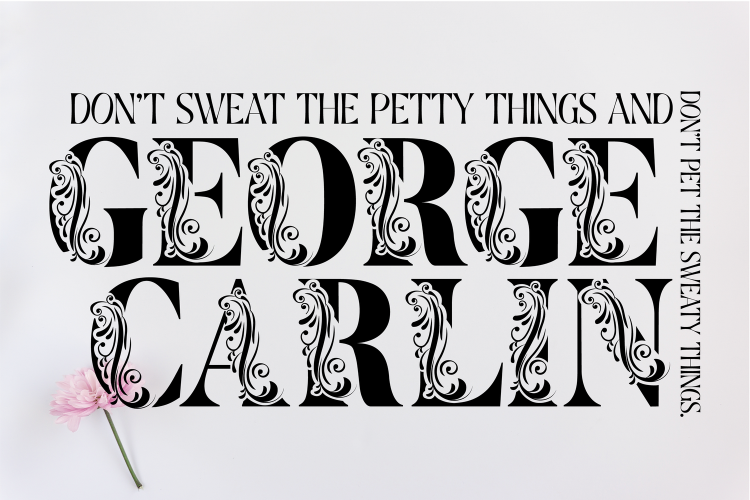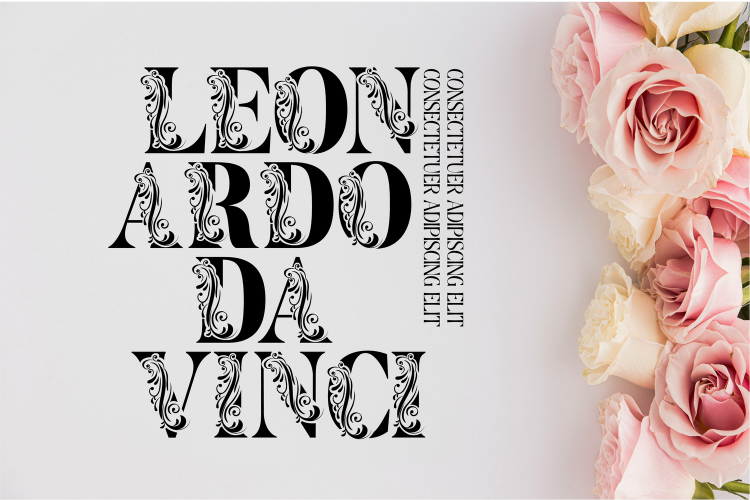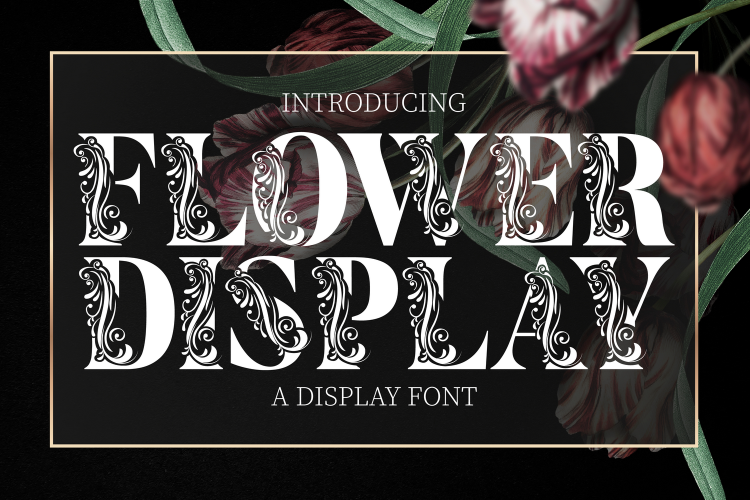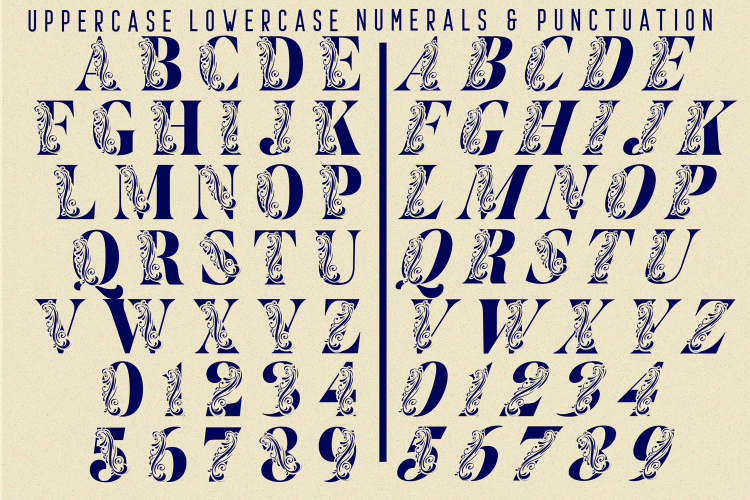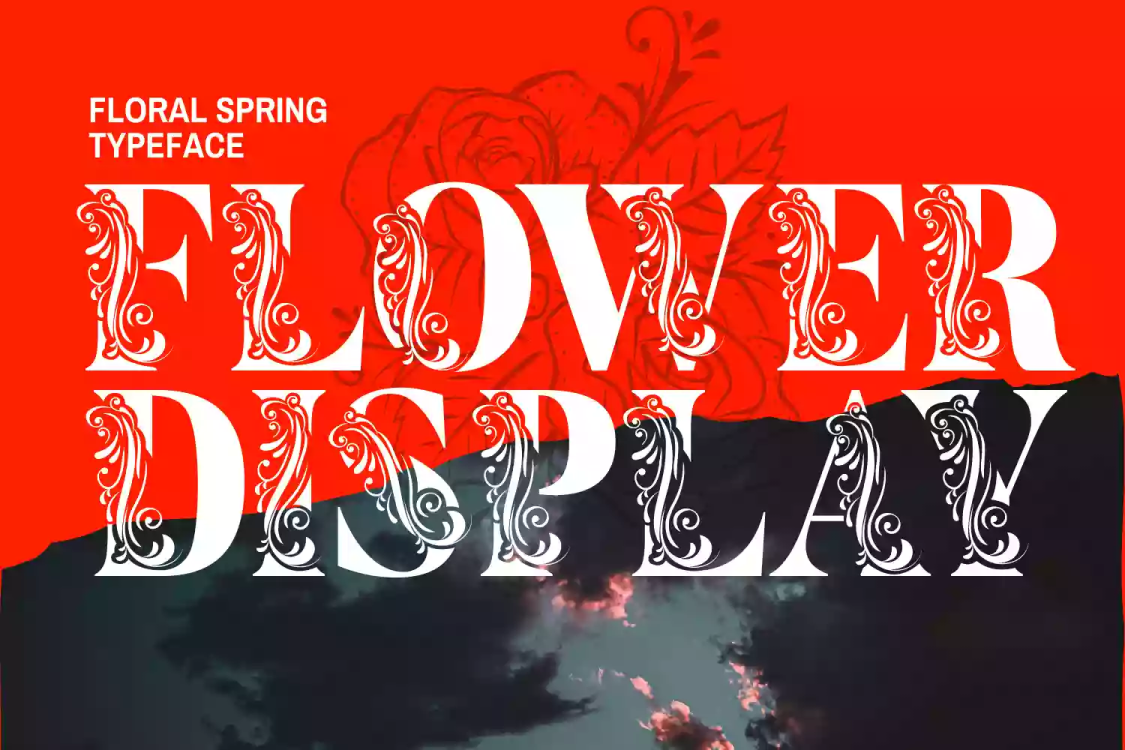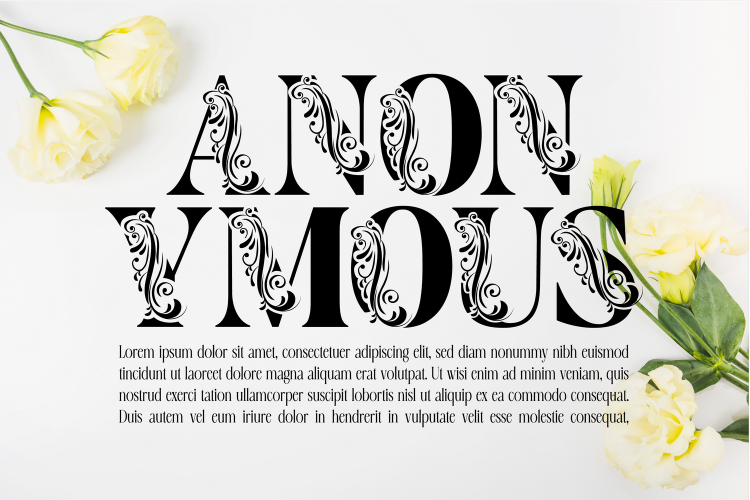
Flower Display Font
Flower Display Font – A Delicate Floral Font with Flowers and Leaves. This font is drawn with a composition of leaves and flowers so that it forms like letters. By using…
Flower Display Font – A Delicate Floral Font with Flowers and Leaves. This font is drawn with a composition of leaves and flowers so that it forms like letters. By using this hand drawn font, you will get a classy and luxury design. It’s an elegant and feminine font suitable for all kinds of headlines and decorative purposes. It’s a perfect font for, all kinds of wedding stationary, invitations, natural logos, flower shops, packaging, social media posts and so much more!
Where Flower Display Font works best
Flower Display Font is built for size: event posters, hero headlines and billboard-style layouts.
High contrast display type like Flower Display Font reads instantly in thumbnails and motion graphics.
What is Flower Display Font good for?
Flower Display Font is a Display Fonts typeface tagged Branding, Display, Display Fonts, Elegant. It works well for headlines, logos, posters, social media graphics and branding projects that need a distinctive display fonts look.